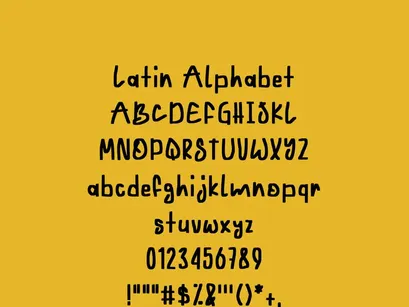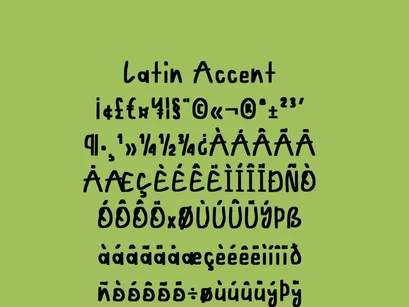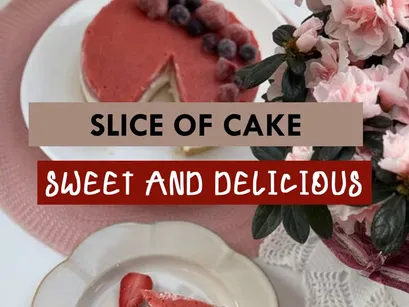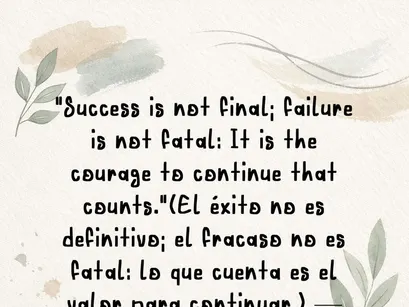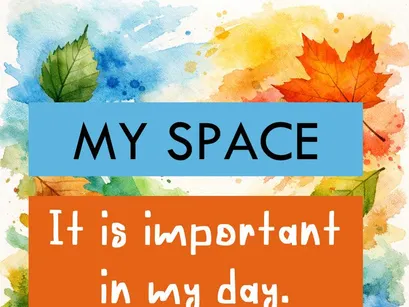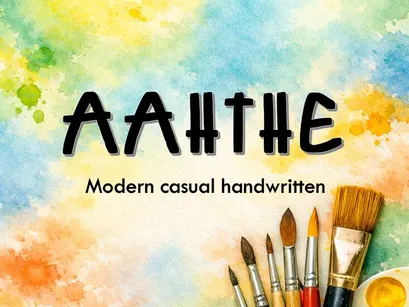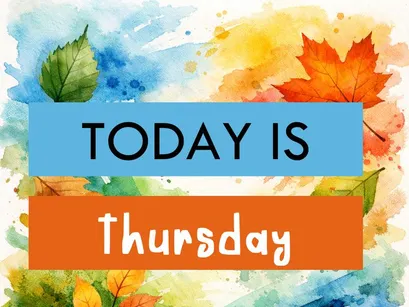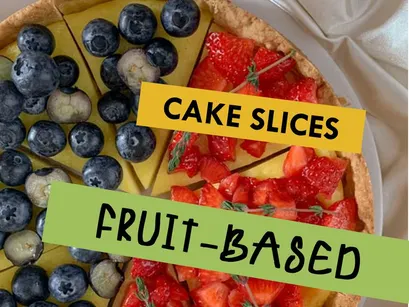
AAHTHE
AAHTHE is a modern, casual font with a handcrafted touch, designed to convey authenticity and warmth in every word.
Its firm, slightly irregular strokes evoke handwriting, making it ideal for creative projects, artistic branding, planners, motivational quotes, and natural-style designs.
It includes a full set of Latin characters and accents for international compatibility.